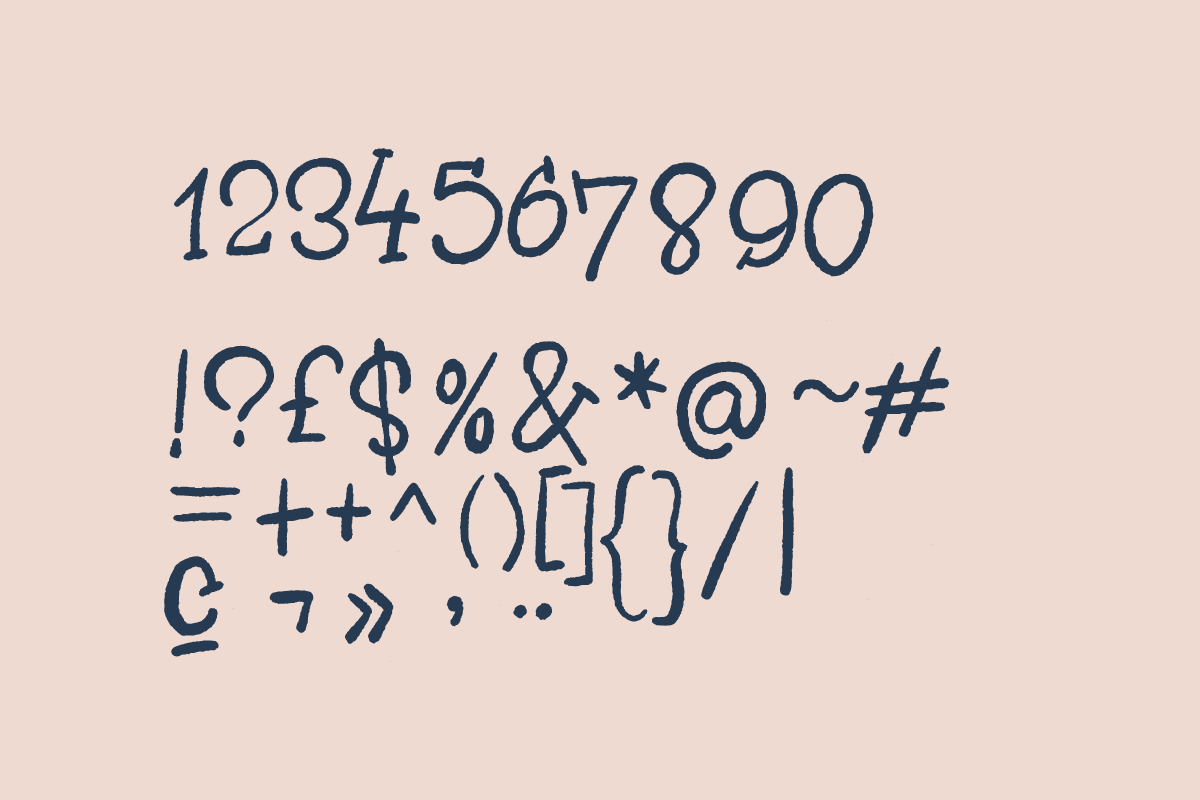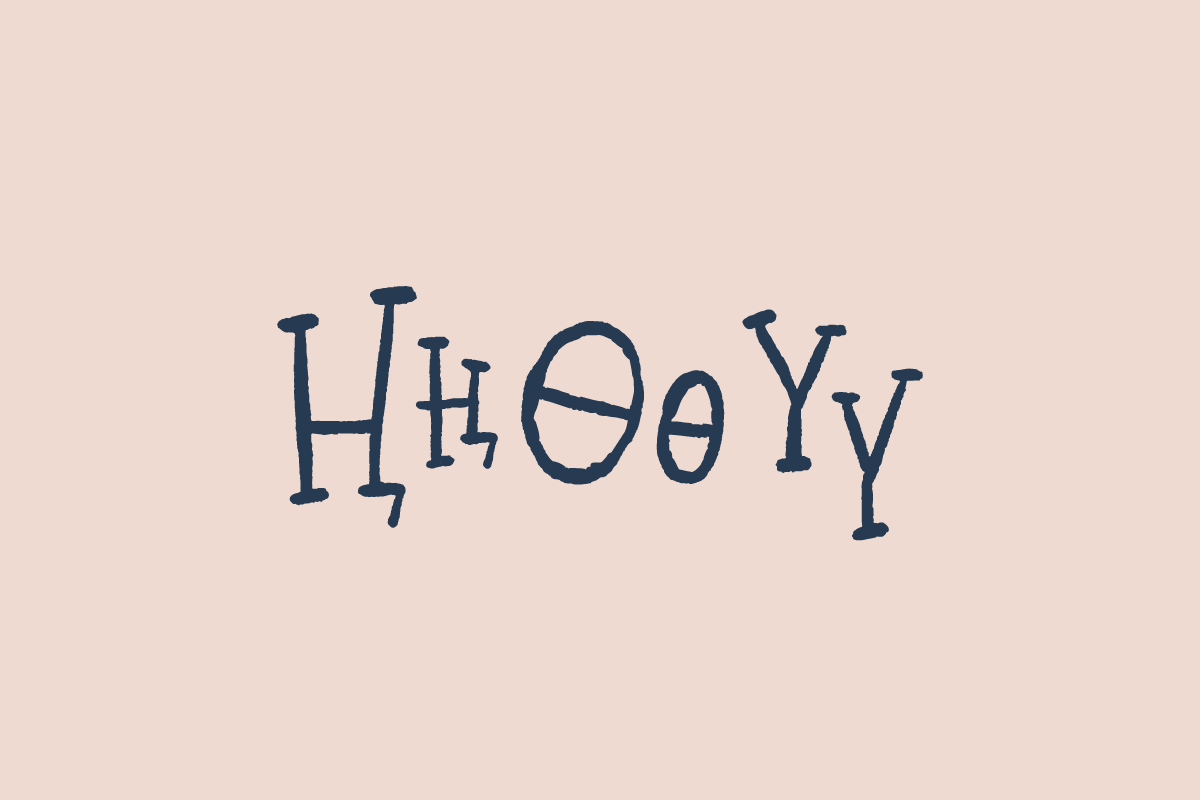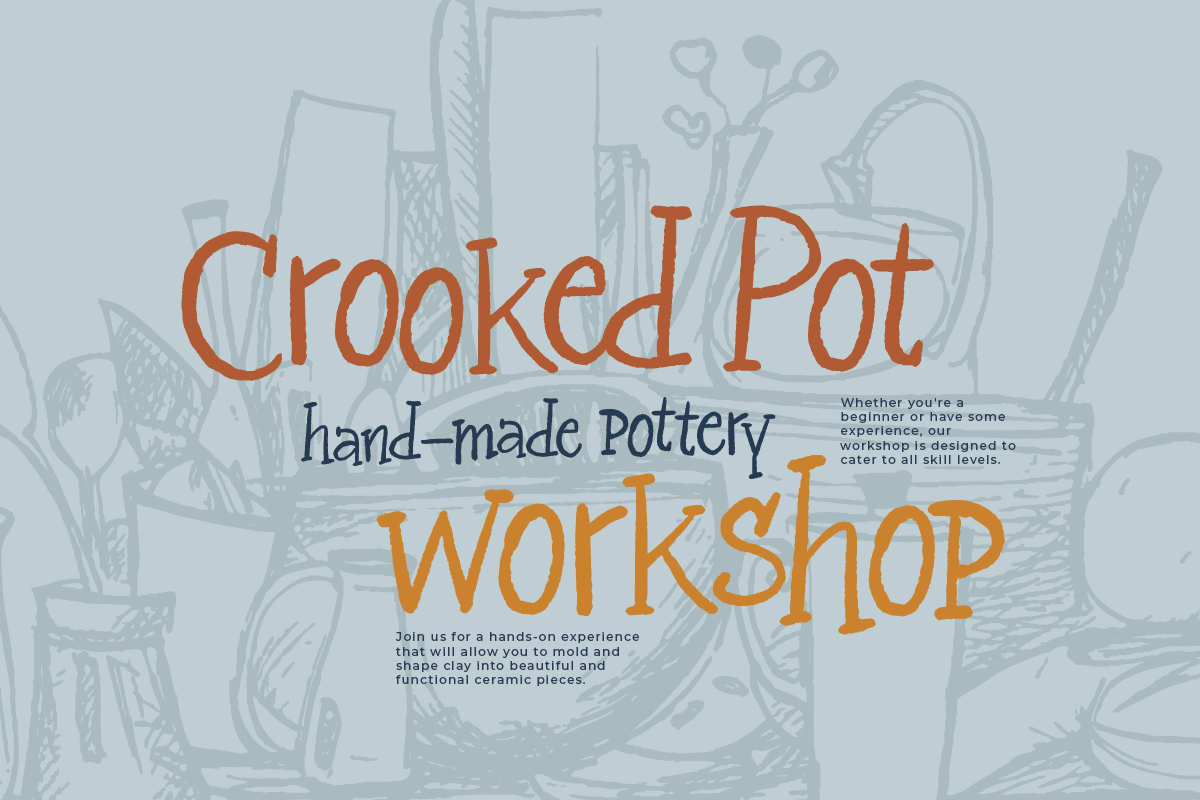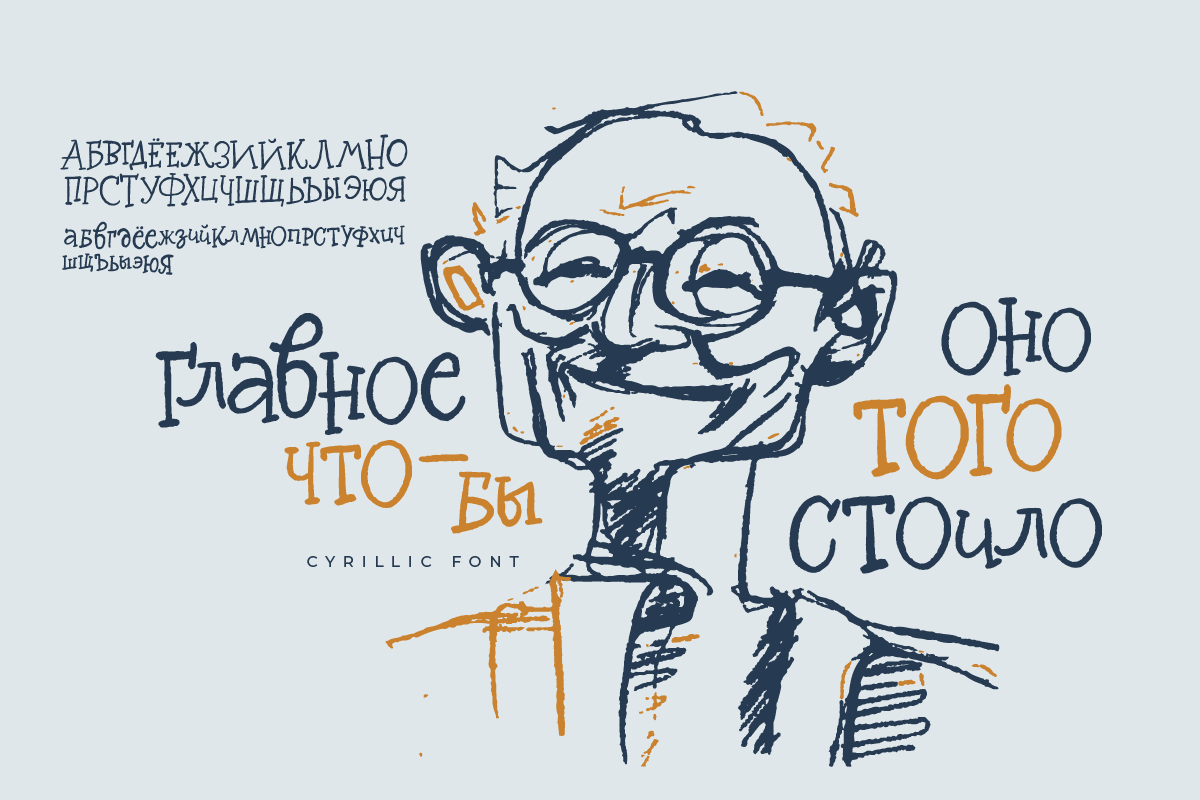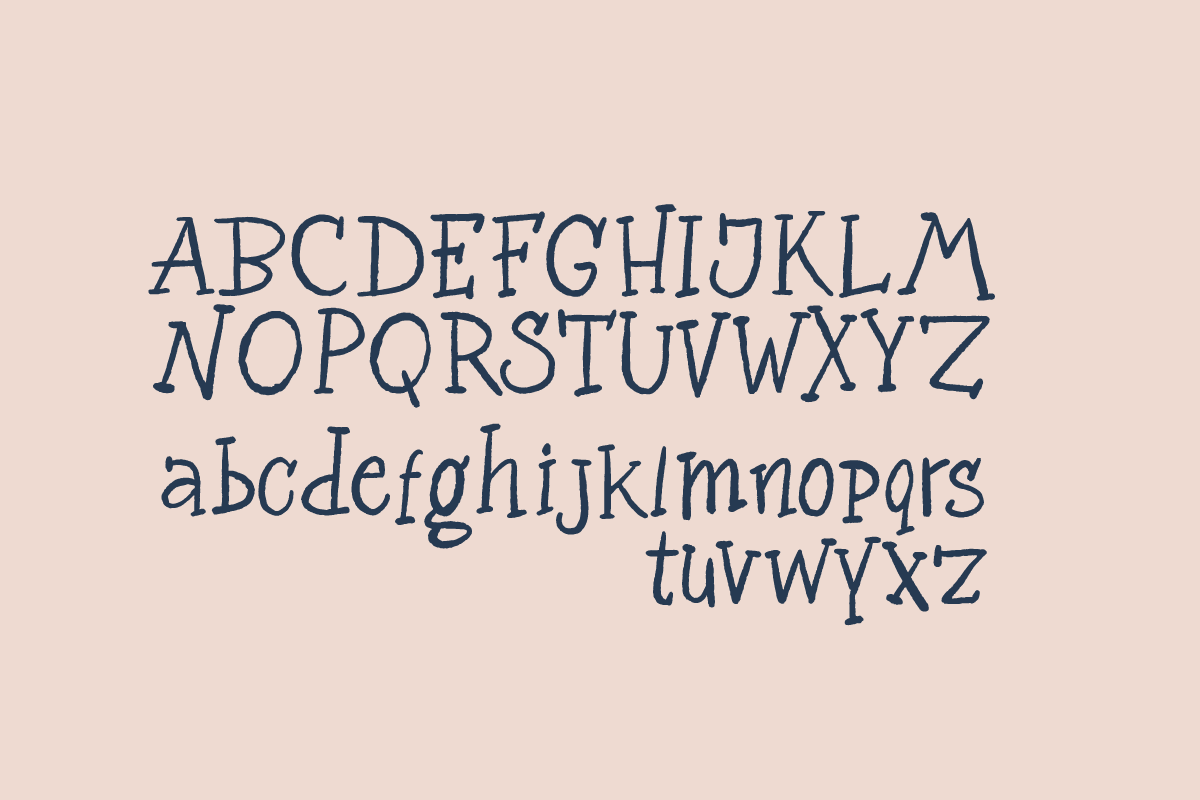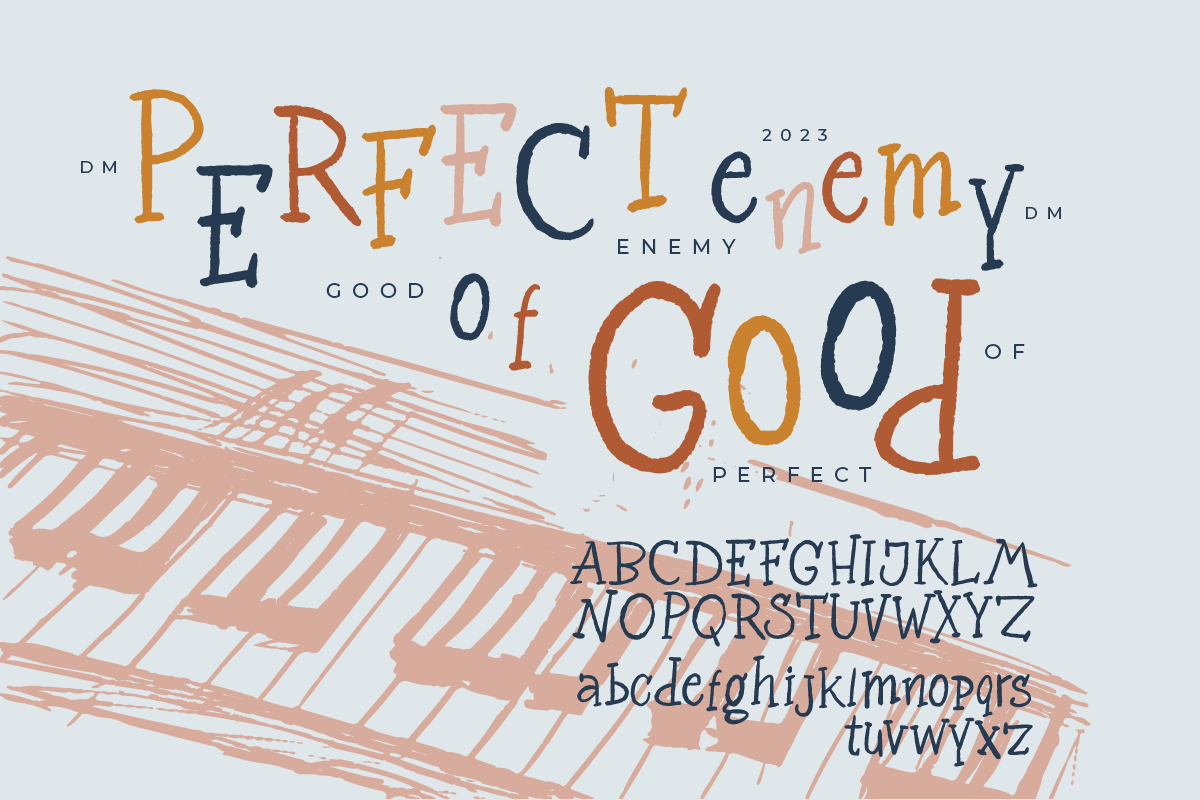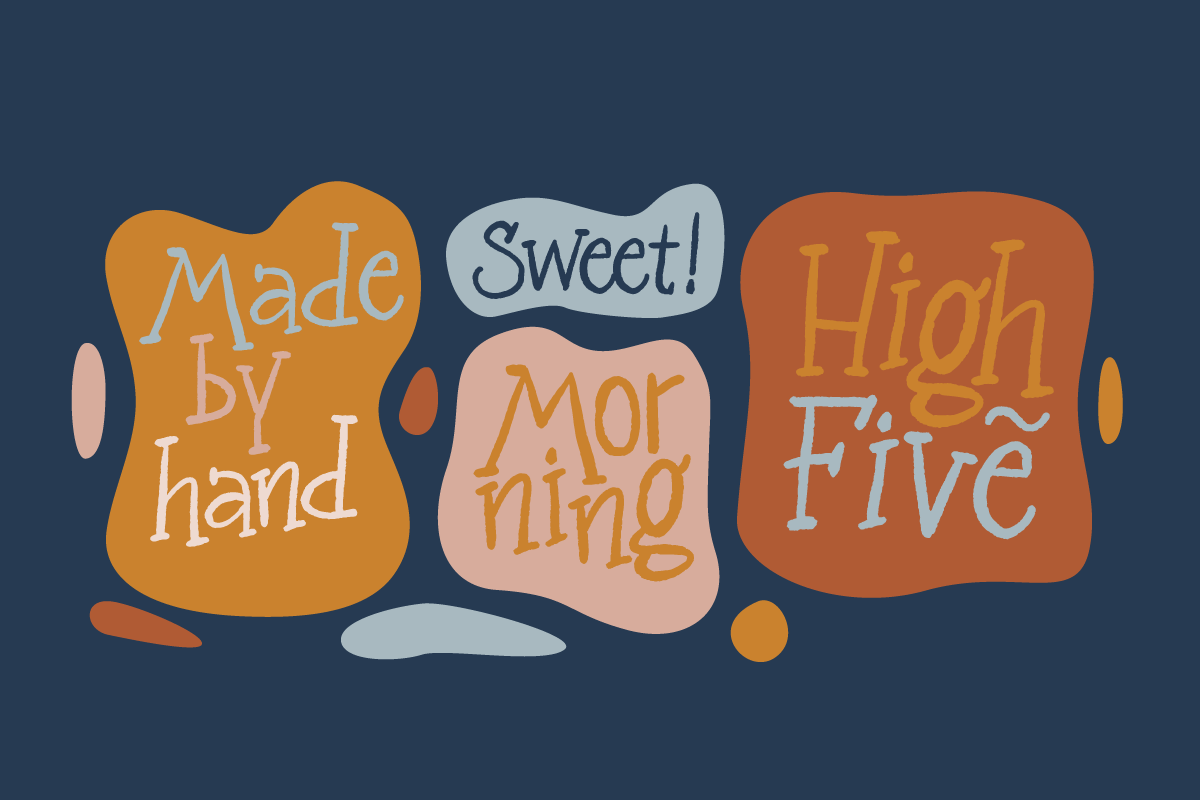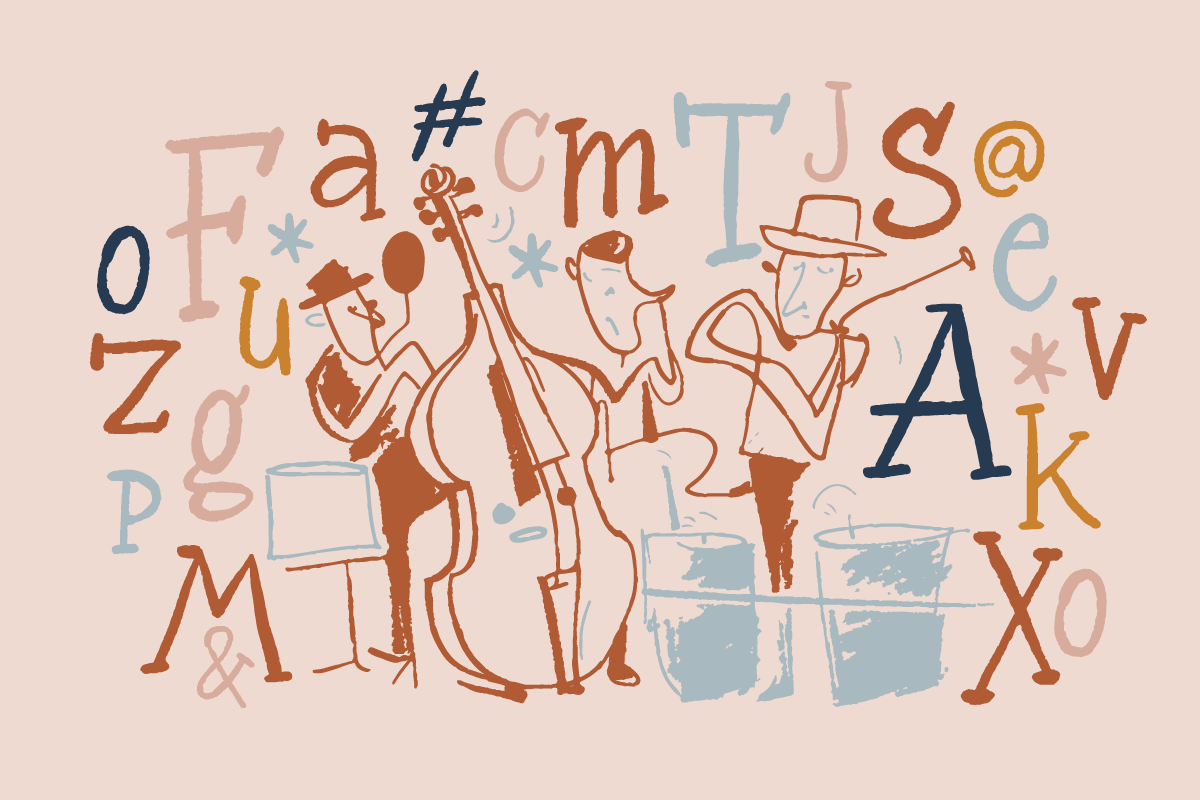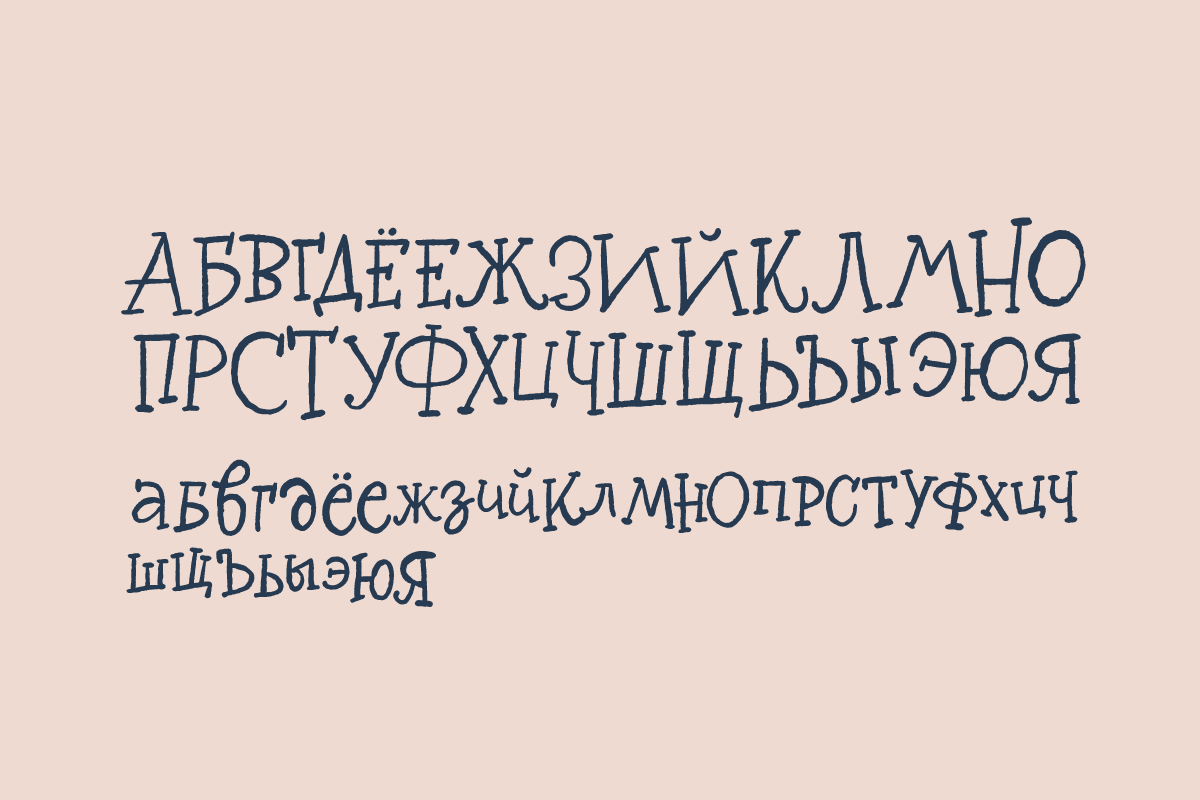
Aralash serif handwritten font
Introducing Aralash!
Unbelievably chic, incredibly laid-back... it's poised to tackle any task.
Aralash is meticulously crafted to emulate the grace of natural handwriting, featuring ink-inspired, fluid edges for that added touch of authenticity - an ideal choice for infusing your designs with a natural handwritten feel. Cyrillic characters are also included in the font, making it versatile for a broader range of design projects.